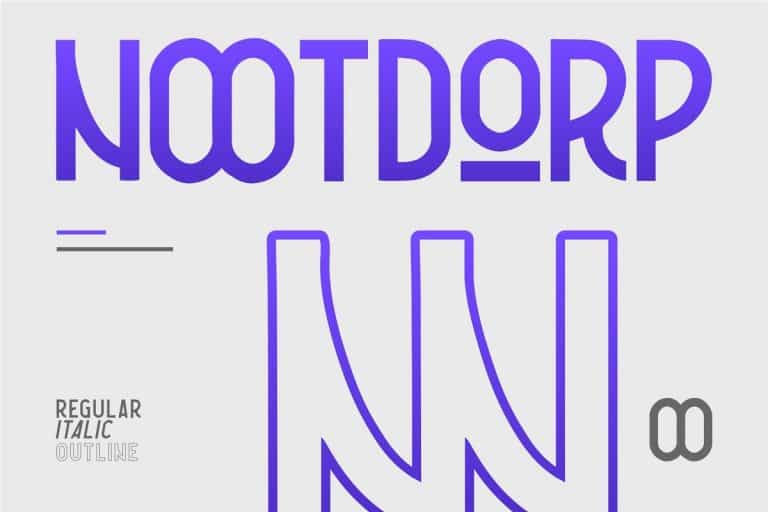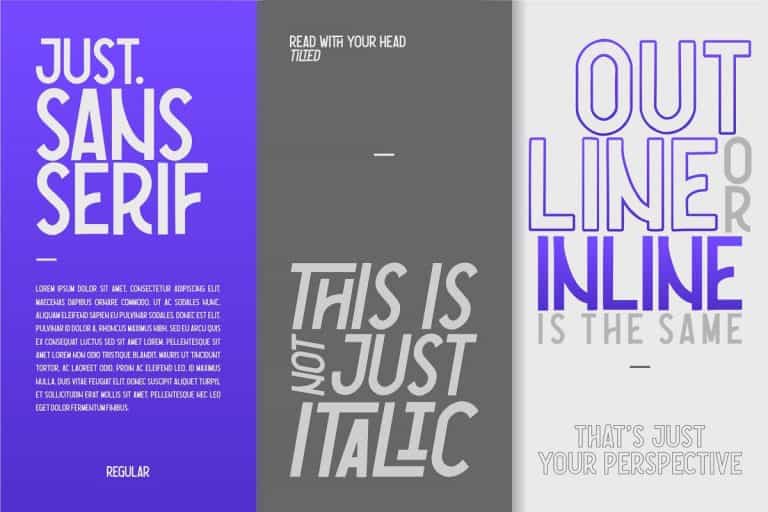
Introducing Nootdorp Font. Nootdorp Typeface, which is a combination of modern sans and powerful typeface, was created by Nootdorp. The name from one place on Germany: Nootdorp. This font very adaptable for branding, label, packaging, logotype, website header headline magazine and a lot of other things the great work. Included on Nootdorp with 3 style: The typefaces normally used are Regular, Italic and Outline. Thus, the fonts are very well matched.